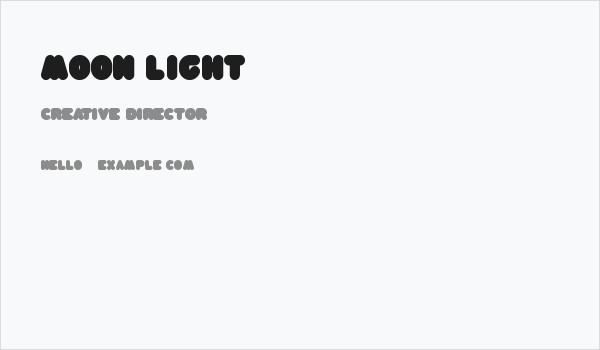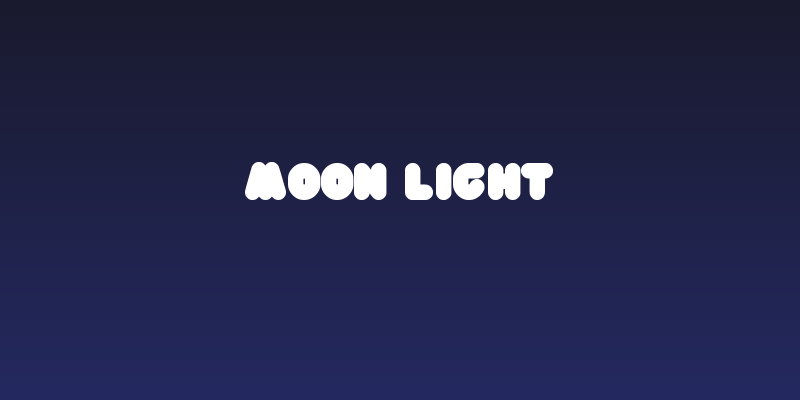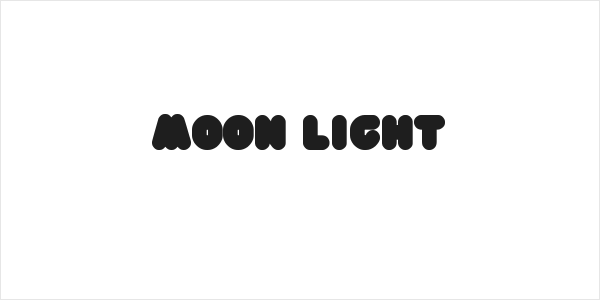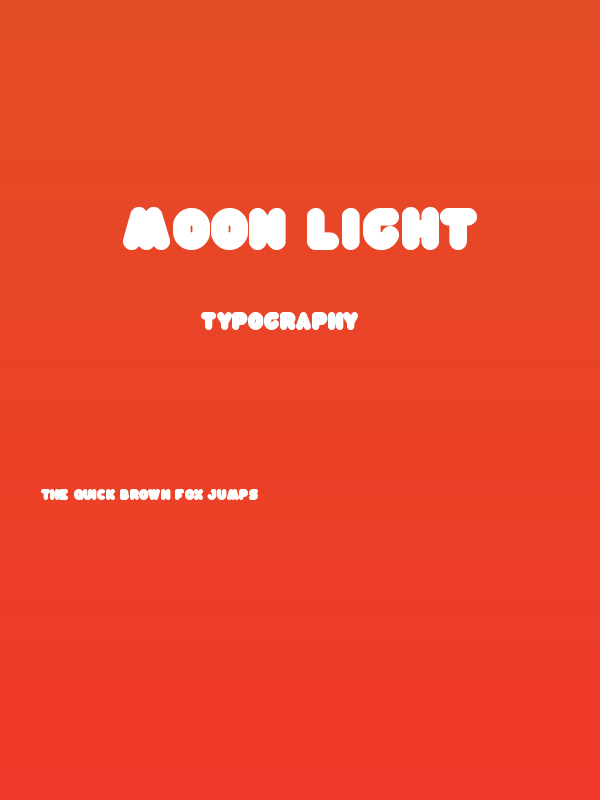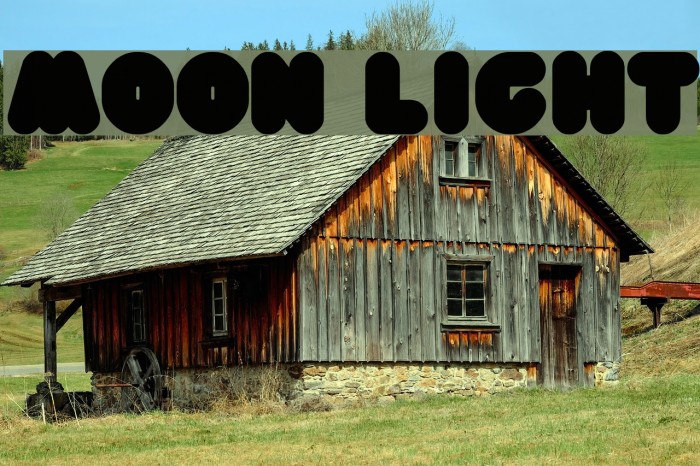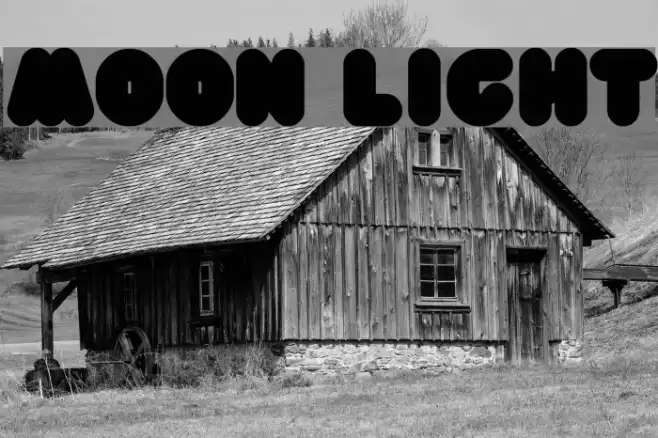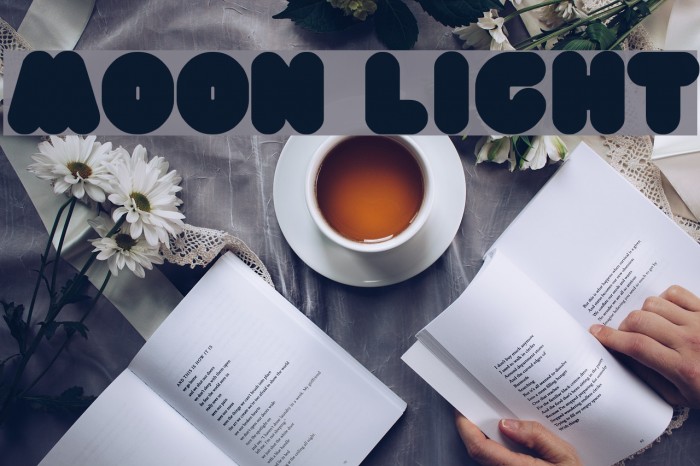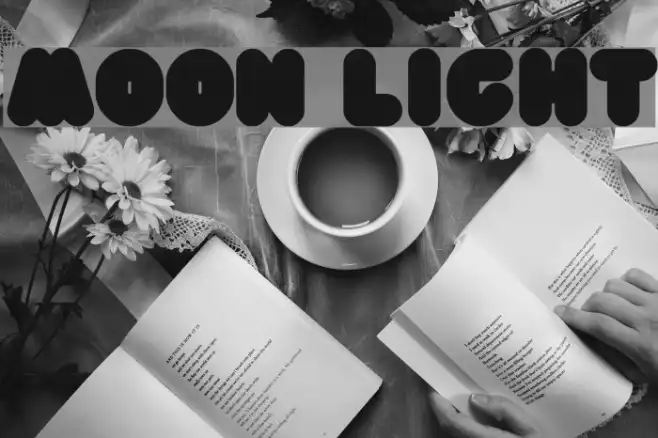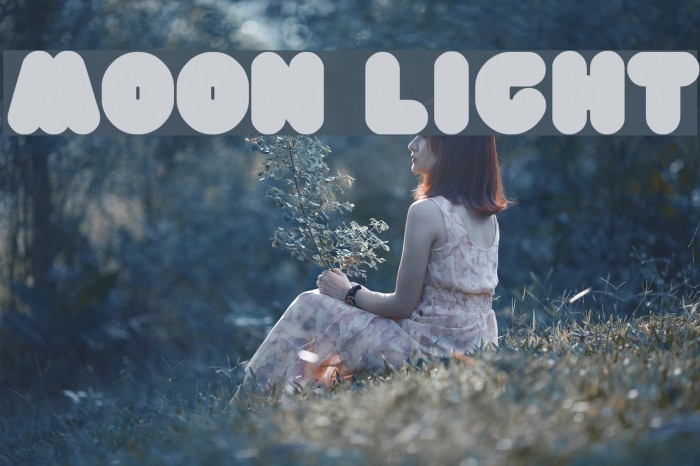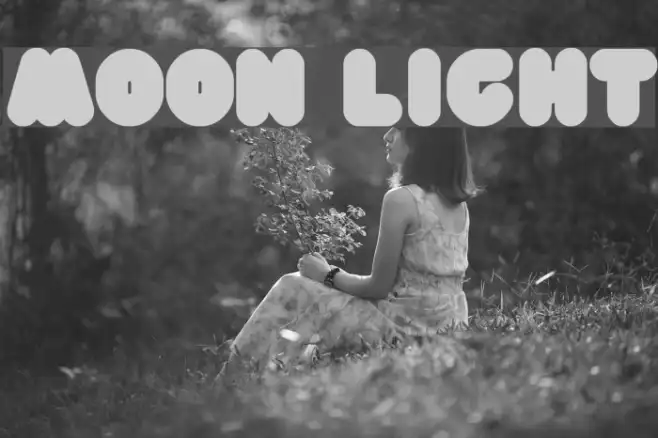
moon light Font
moon light Description
This font features bold, rounded characters with a playful and chunky appearance. The letters are uniformly thick, creating a strong visual impact. The rounded edges and consistent stroke width give it a friendly and approachable feel, making it ideal for designs that require a touch of whimsy. The uniformity in the letterforms ensures readability while maintaining a distinct style. This font is perfect for projects that aim to capture attention with its bold and fun aesthetic.
| Overall Style | Playful, Fun |
| Proposed Projects | Ideal for children's books, playful branding, posters, and social media graphics. |